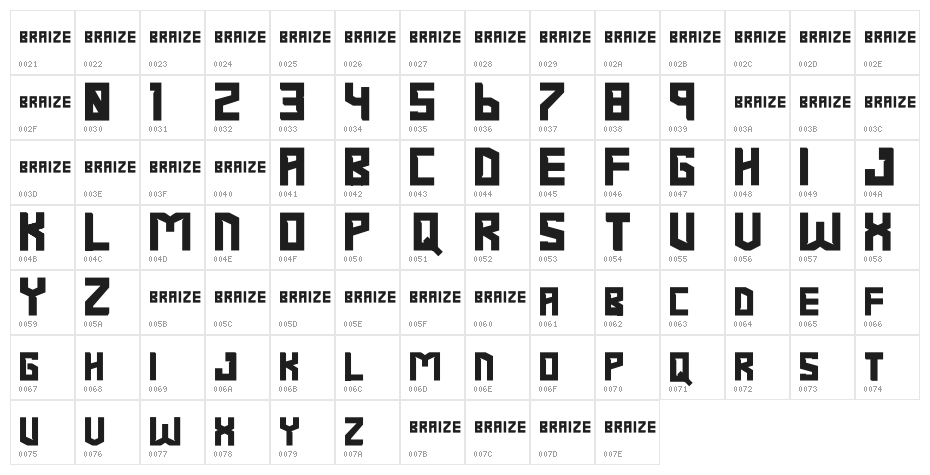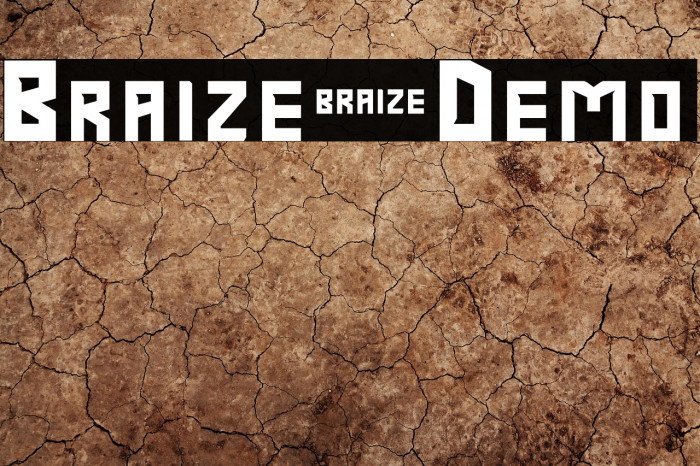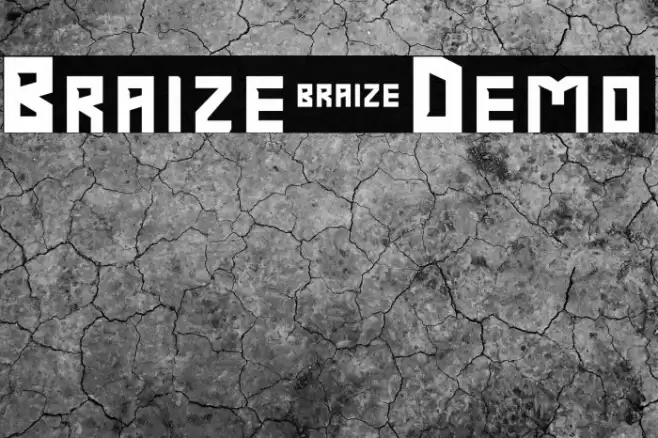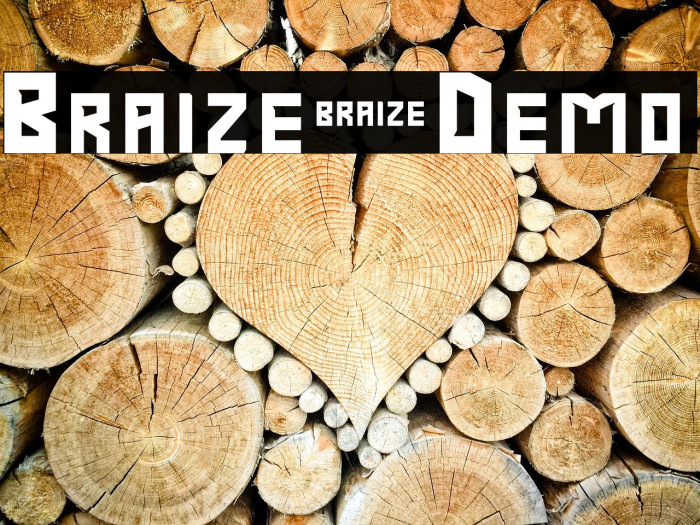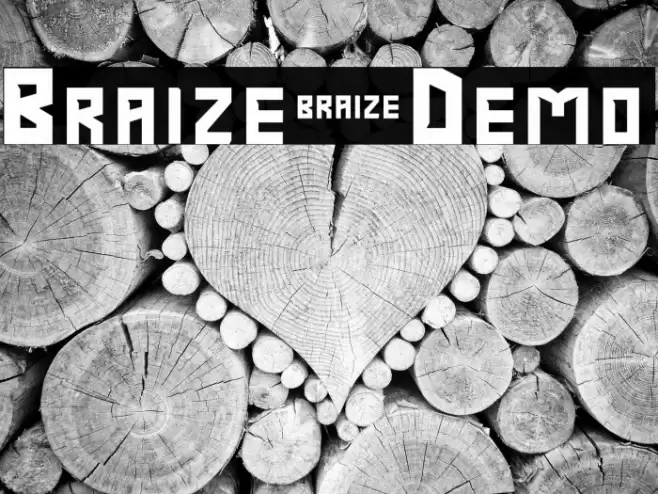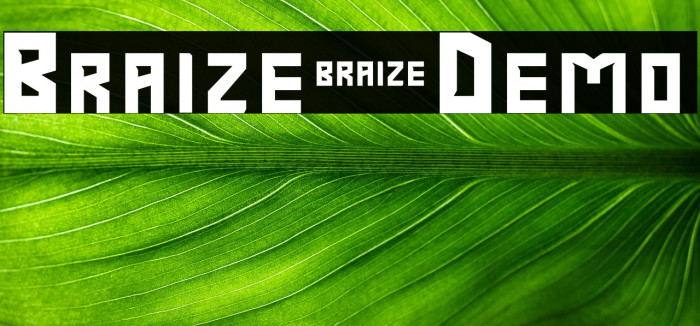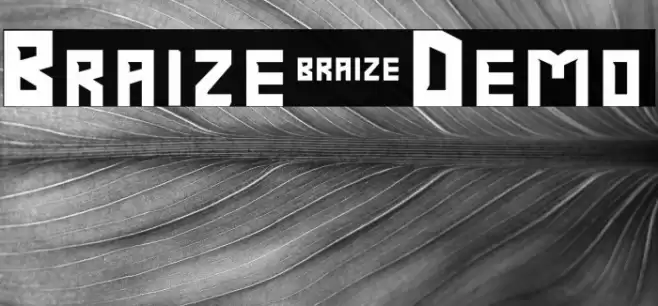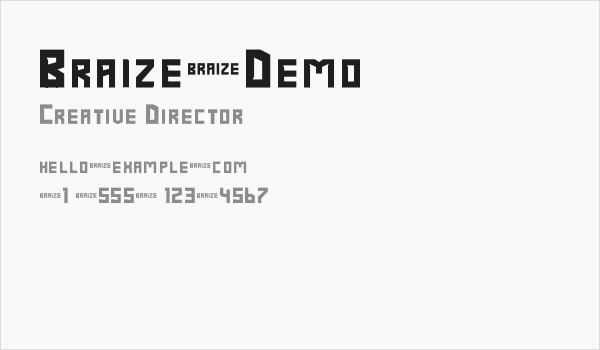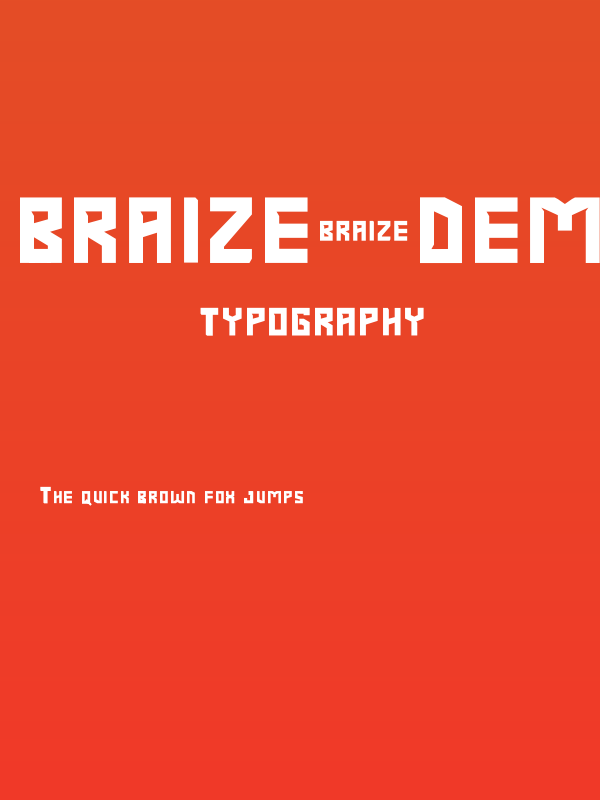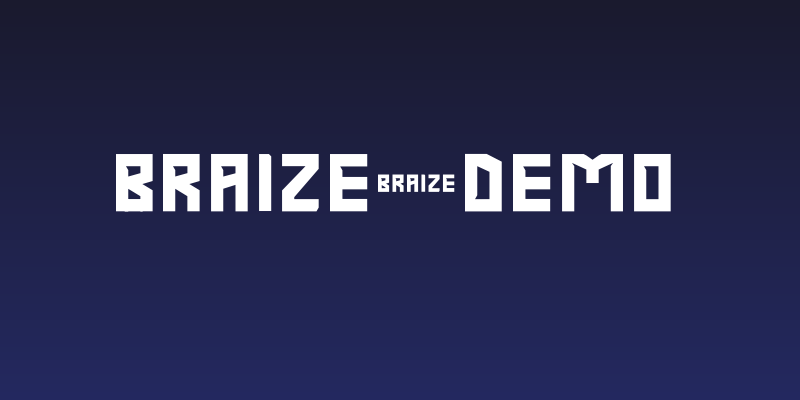
Braize-Demo Font
Braize-Demo Description
This font features a bold, geometric style with sharp angles and a strong presence. The uppercase letters are uniform in height, creating a cohesive and structured appearance. The design is reminiscent of industrial or futuristic themes, with each character exhibiting a block-like form. The numbers follow the same bold and angular design, ensuring consistency across all characters. The font's unique style makes it stand out, suitable for projects that require a modern and impactful look.